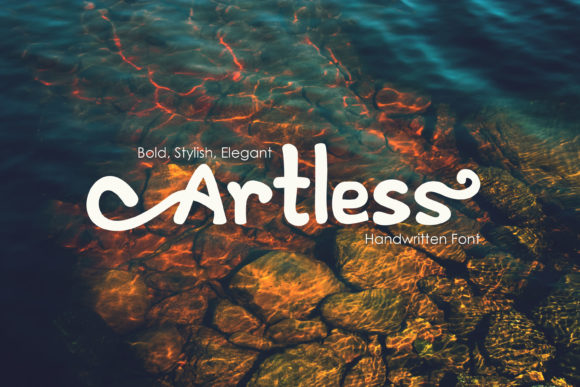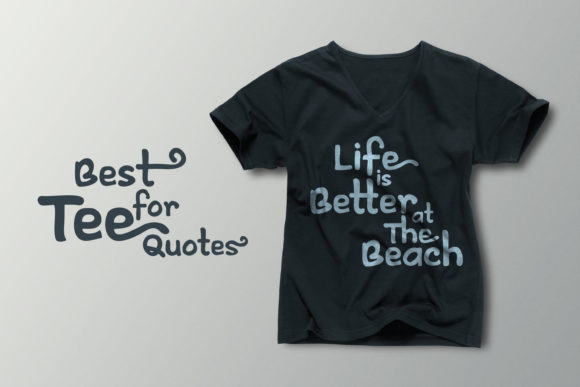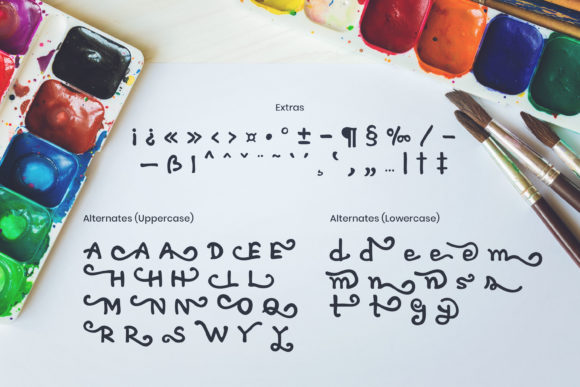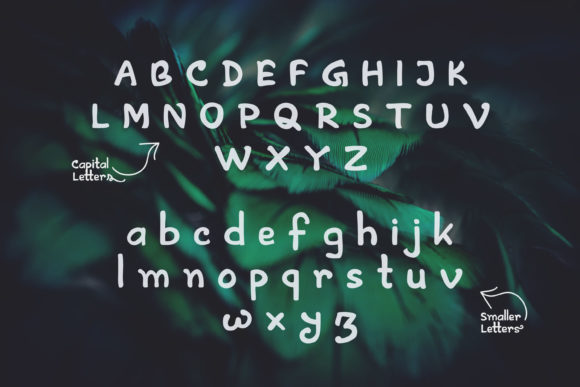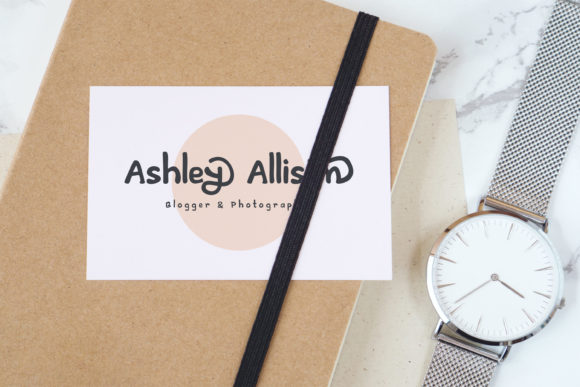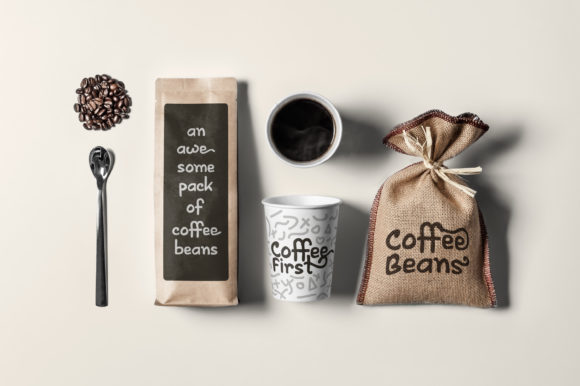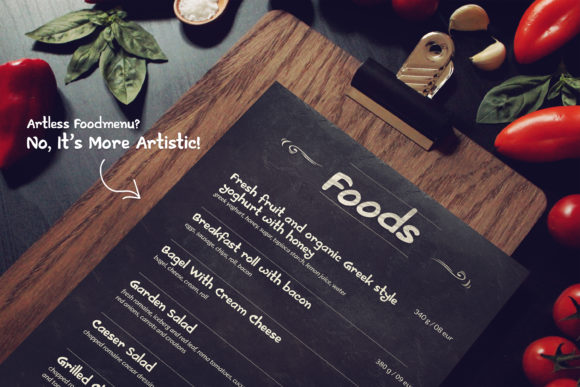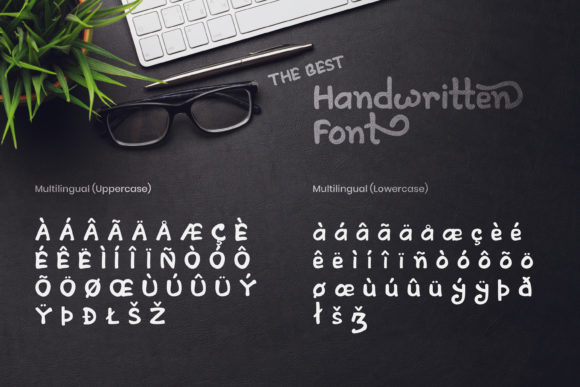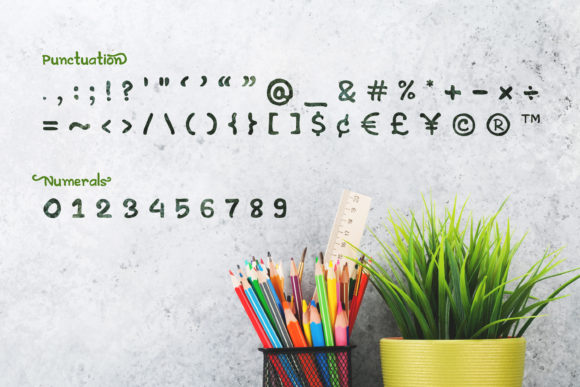
Artless Font
About Artless Font
Artless is the perfect font to create a beautiful and elegant atmosphere. Use it to turn any design project into a standout!